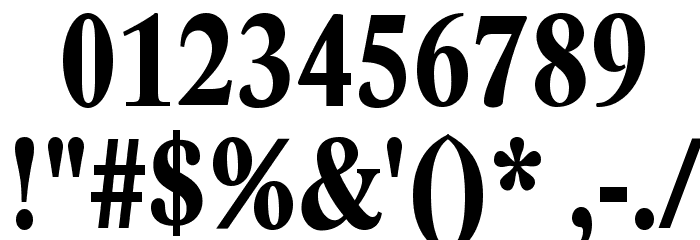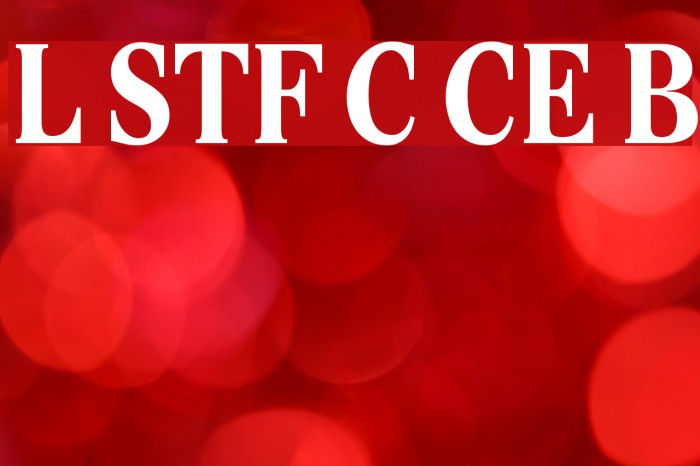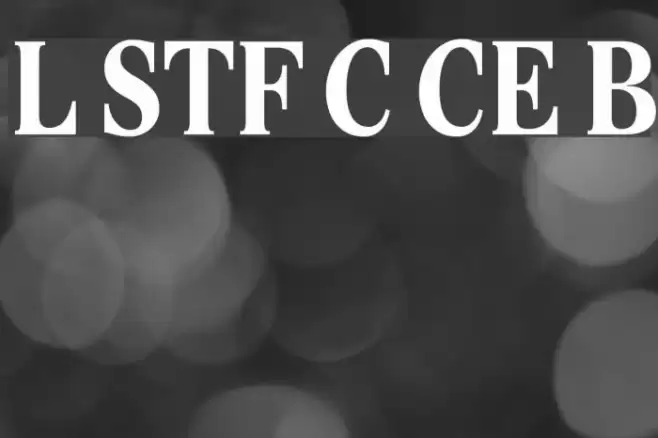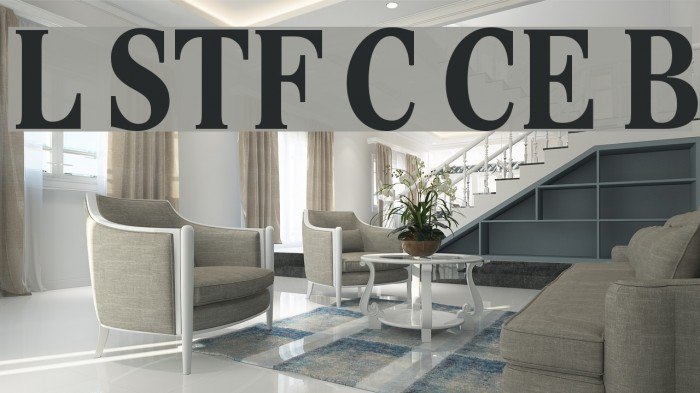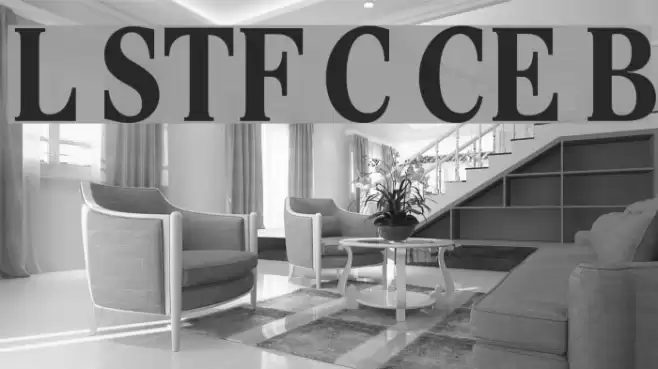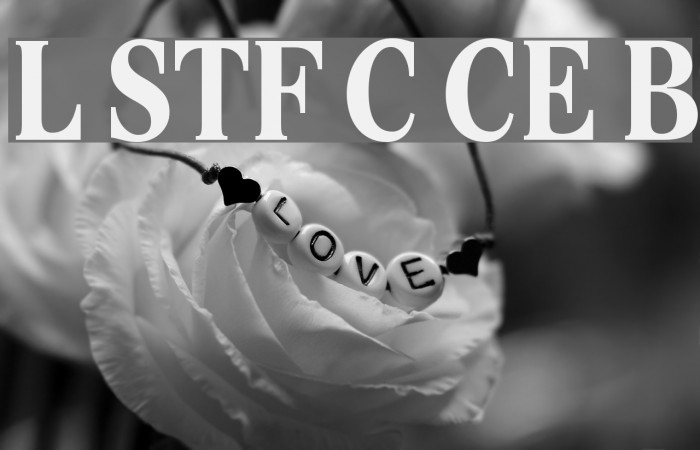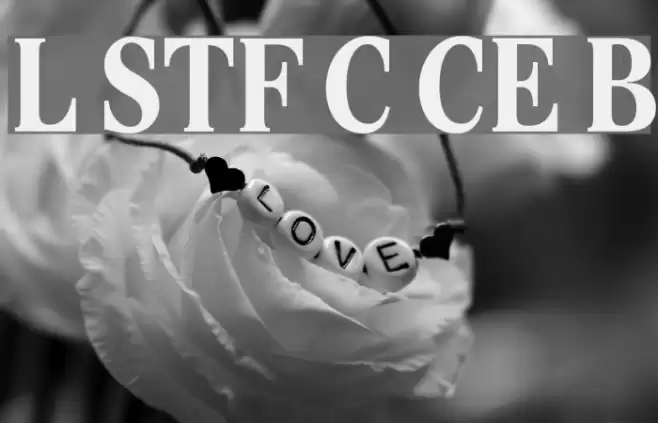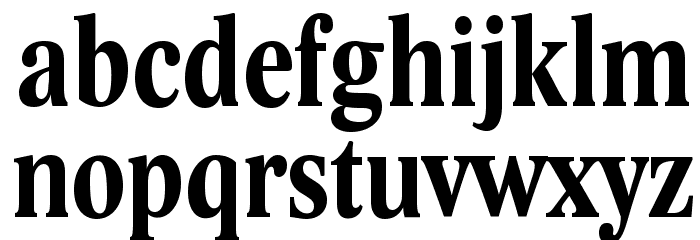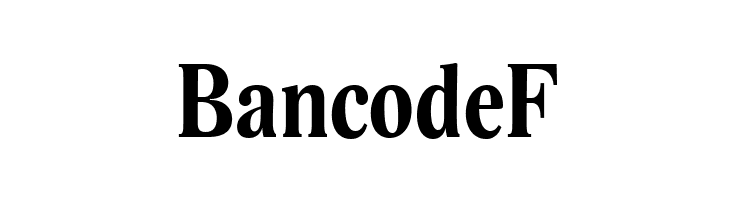
Lido STF Cond CE Bold Font
Lido STF Cond CE Bold Description
This typeface features a bold and condensed style, characterized by its strong presence and impactful appearance. The uppercase letters are tall and commanding, while the lowercase letters maintain a consistent and harmonious flow. The numerals are clear and easily distinguishable, making them suitable for various applications. Special characters are designed with precision, ensuring readability and aesthetic appeal. The overall design is modern yet retains a classic touch, making it versatile for both contemporary and traditional projects.
| Width | Condensed |
| Use Case | Headlines, Logos, Branding |
| Proposed Projects | Ideal for headlines, posters, branding, and editorial design where a strong and authoritative typeface is required. |